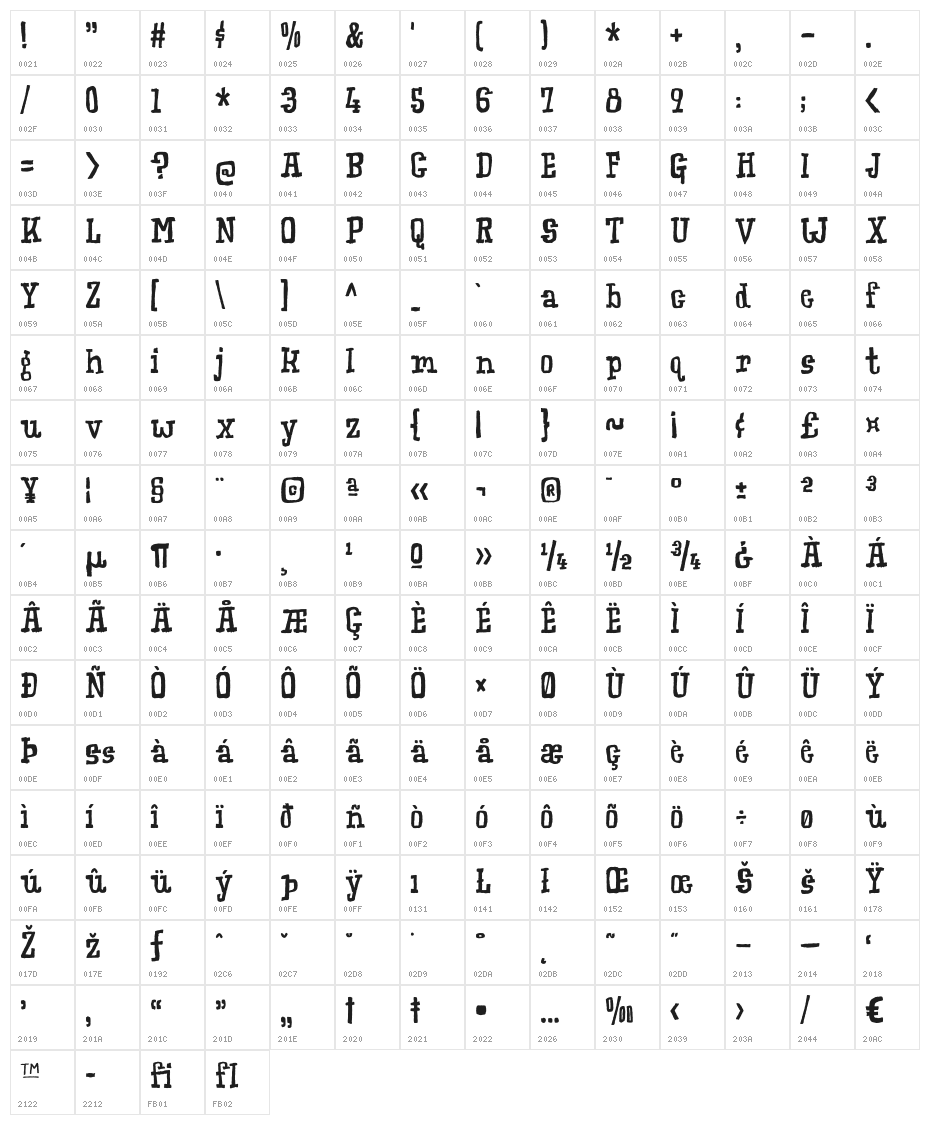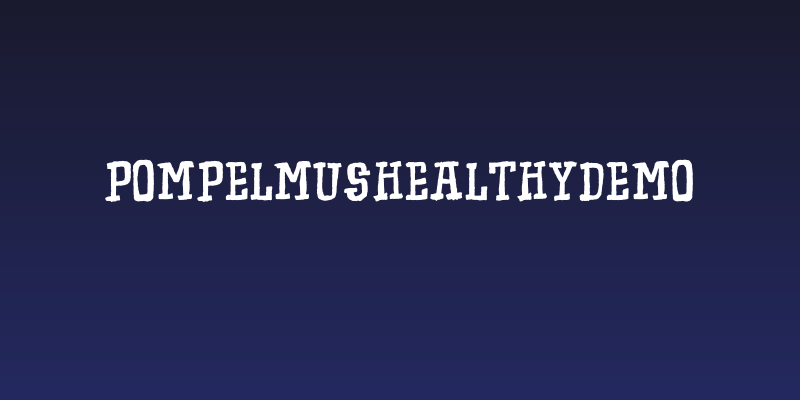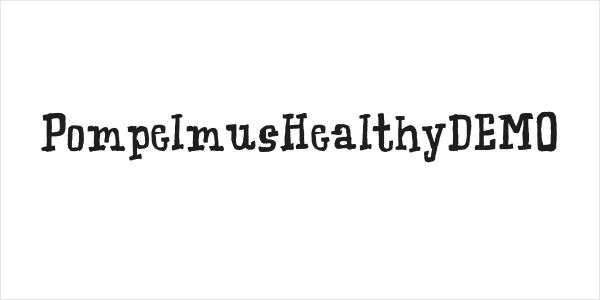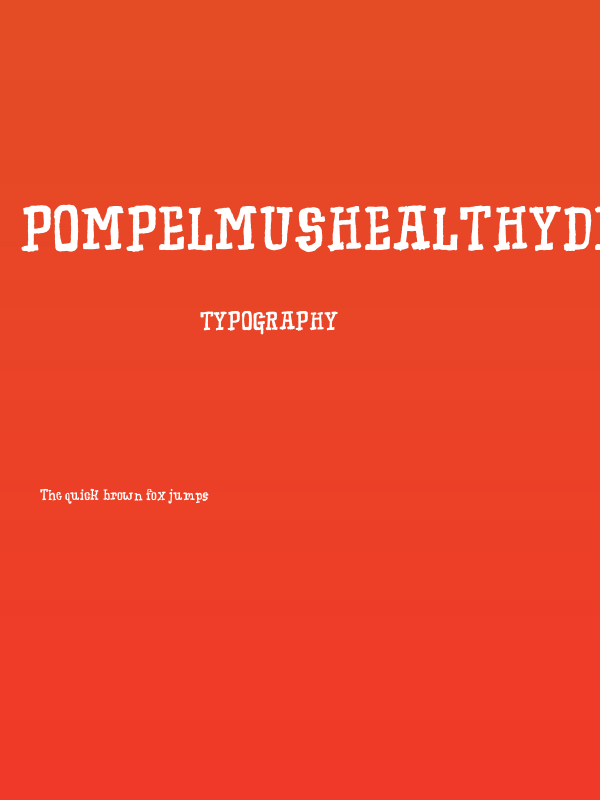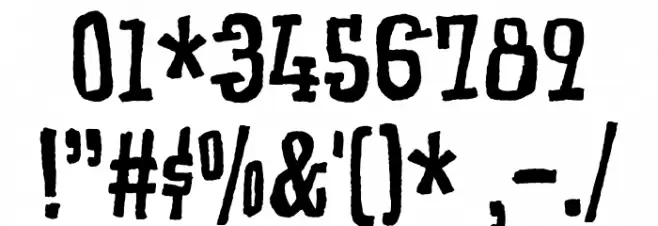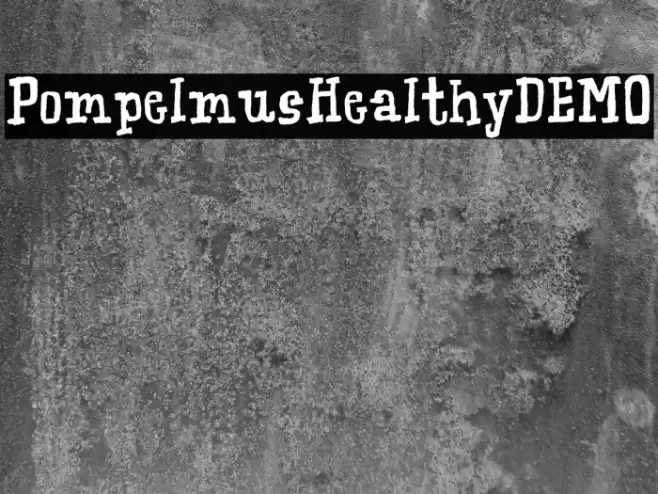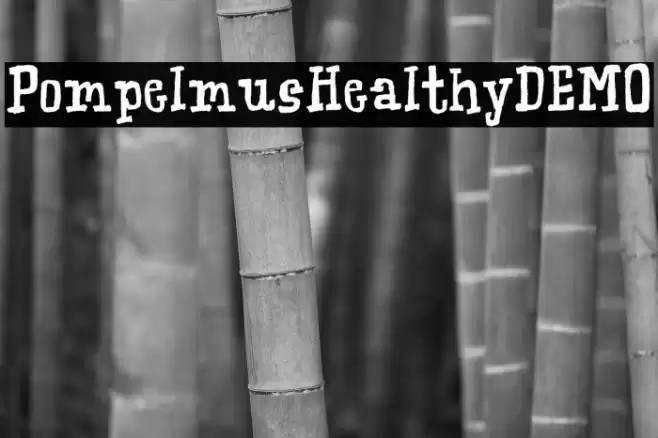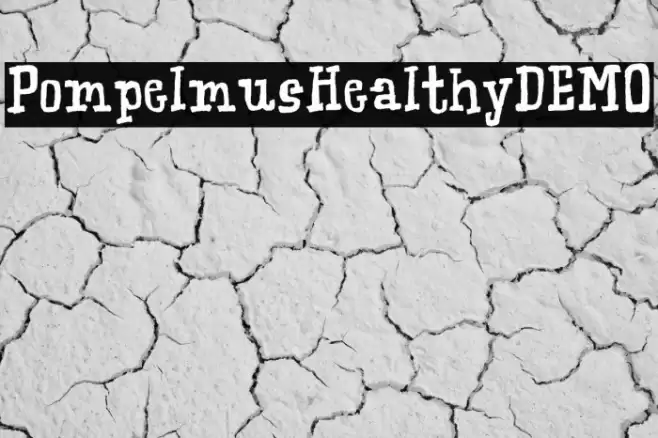
PompelmusHealthyDEMO Font
This font features a bold, rugged style with a hand-drawn appearance. The characters have a distressed texture, giving them a vintage and organic feel. The uppercase and lowercase letters maintain a consistent weight, with slightly irregular edges that add to the handcrafted aesthetic. The numerals and special characters follow the same design, ensuring uniformity across all glyphs. This font's unique style makes it stand out, offering a blend of rustic charm and bold presence.
| Proposed Projects | Ideal for branding projects, posters, and packaging designs that require a rustic or handcrafted touch. |